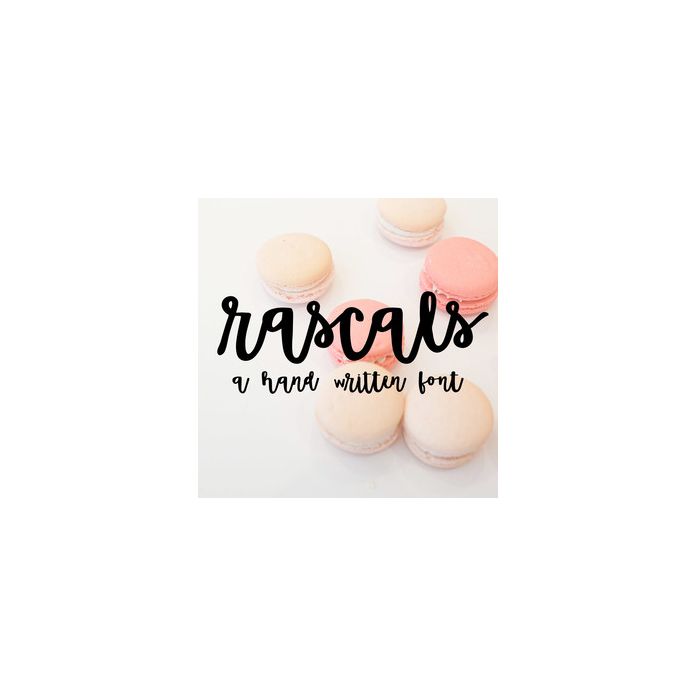
This adorable hand written font is the perfect script font! Available in an an OTF file with ligatures and stylistic alternates. 158 characters with accents, numbers, and symbols.